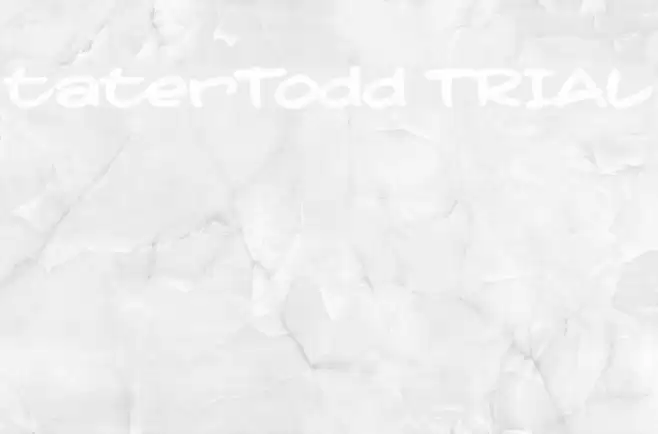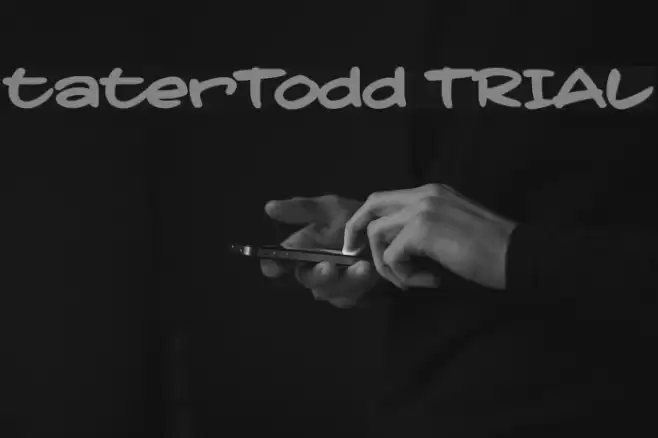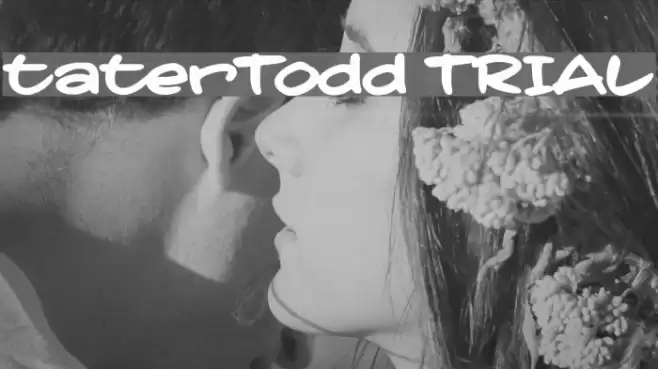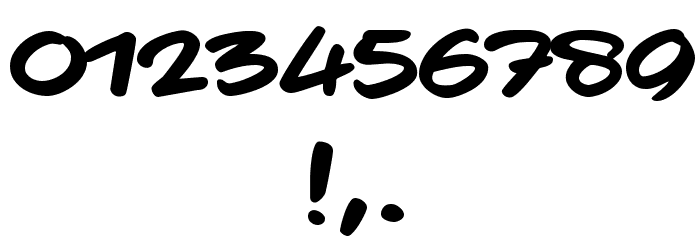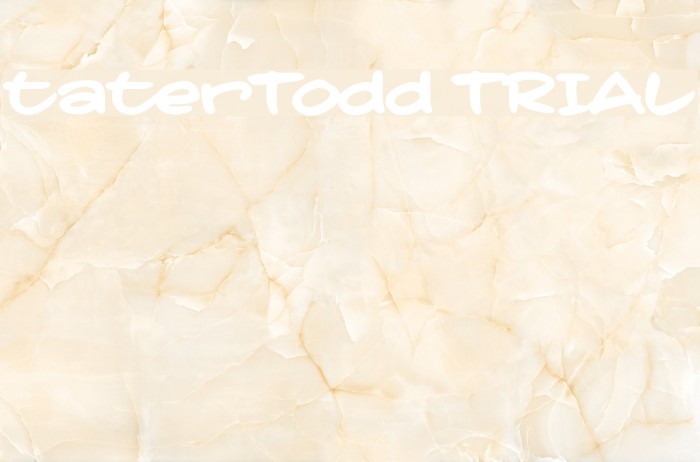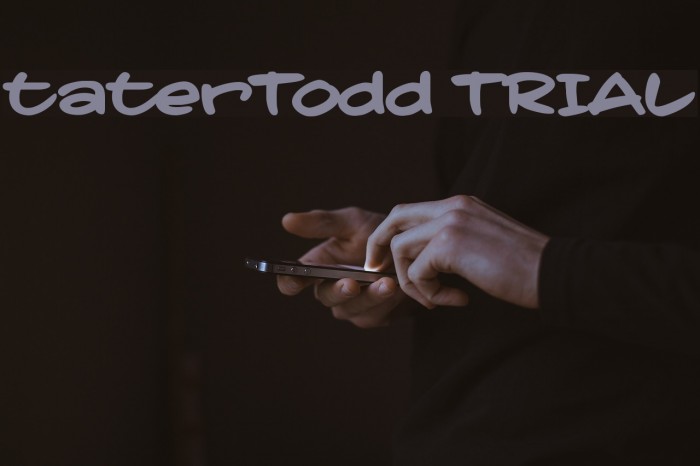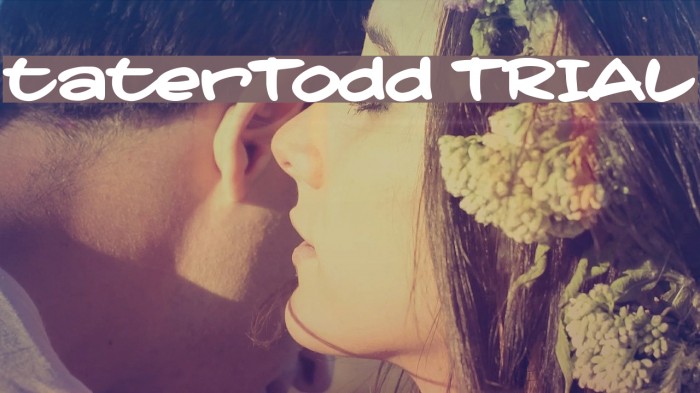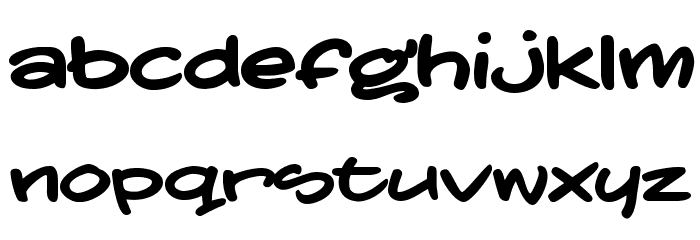
taterTodd TRIAL Font
taterTodd TRIAL Description
This playful and bold font features a handwritten style with a casual and friendly appearance. The characters are rounded and slightly irregular, giving them a lively and energetic feel. The uppercase and lowercase letters maintain a consistent style, with the lowercase letters exhibiting a slight slant that adds to the informal vibe. The numerals are equally bold and rounded, matching the overall aesthetic. Special characters like the exclamation mark and question mark are designed with the same playful touch, making this font ideal for projects that require a fun and approachable look.
A bold, playful handwritten font with a casual and friendly style from Uncategorized fonts.
- Proposed Projects: Ideal for children's books, playful branding, casual invitations, and social media graphics.
- Overall Style: Playful
- Use Case: Headlines, Logos, Informal Text